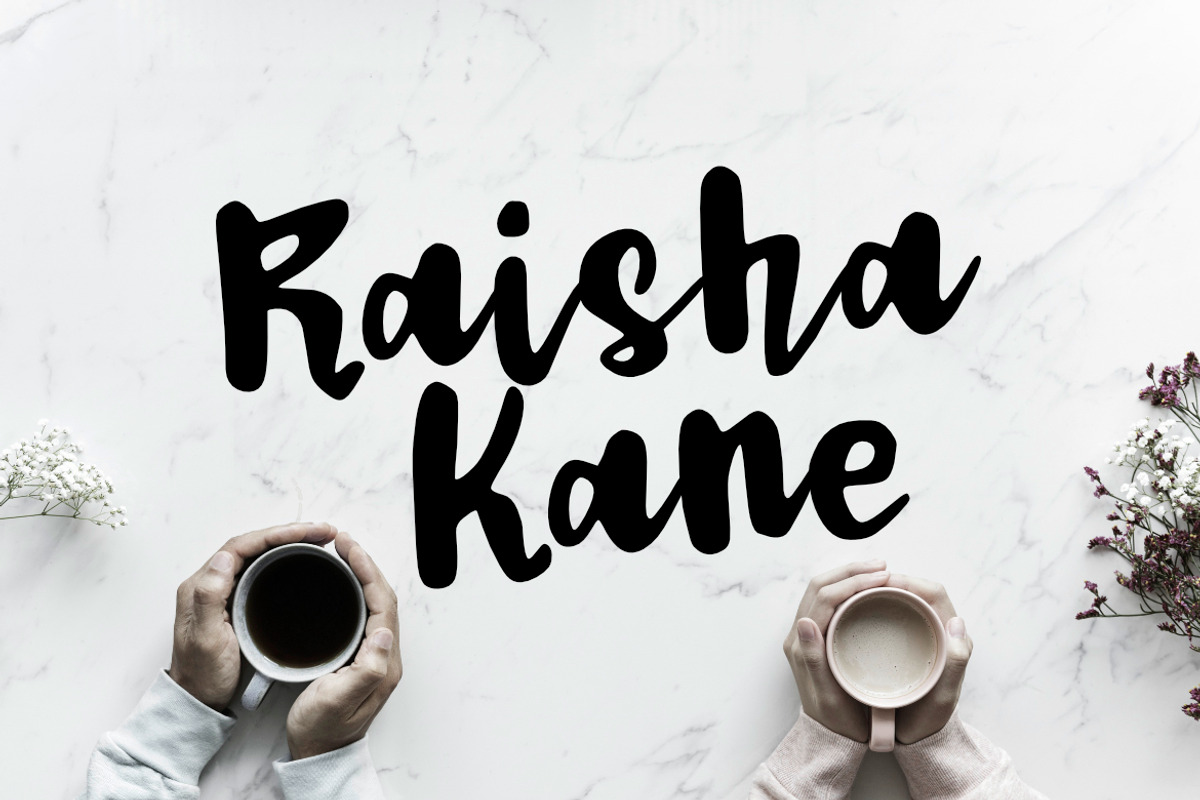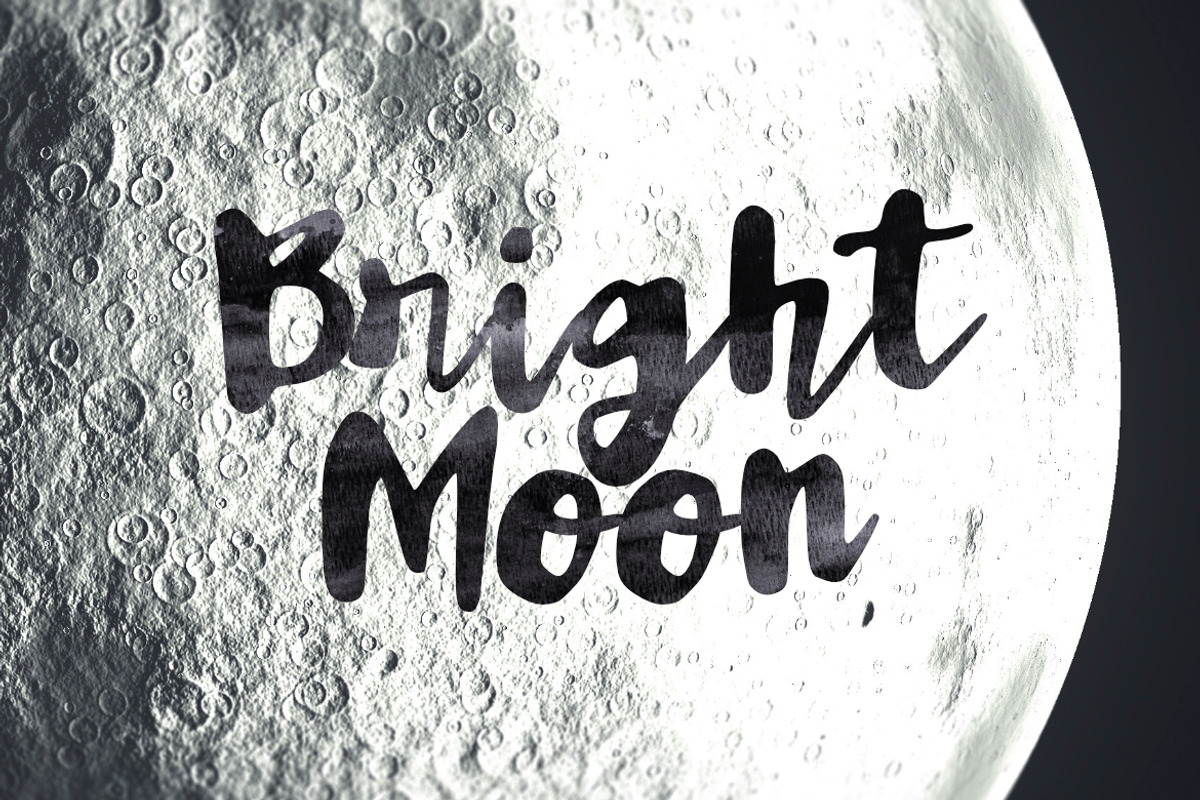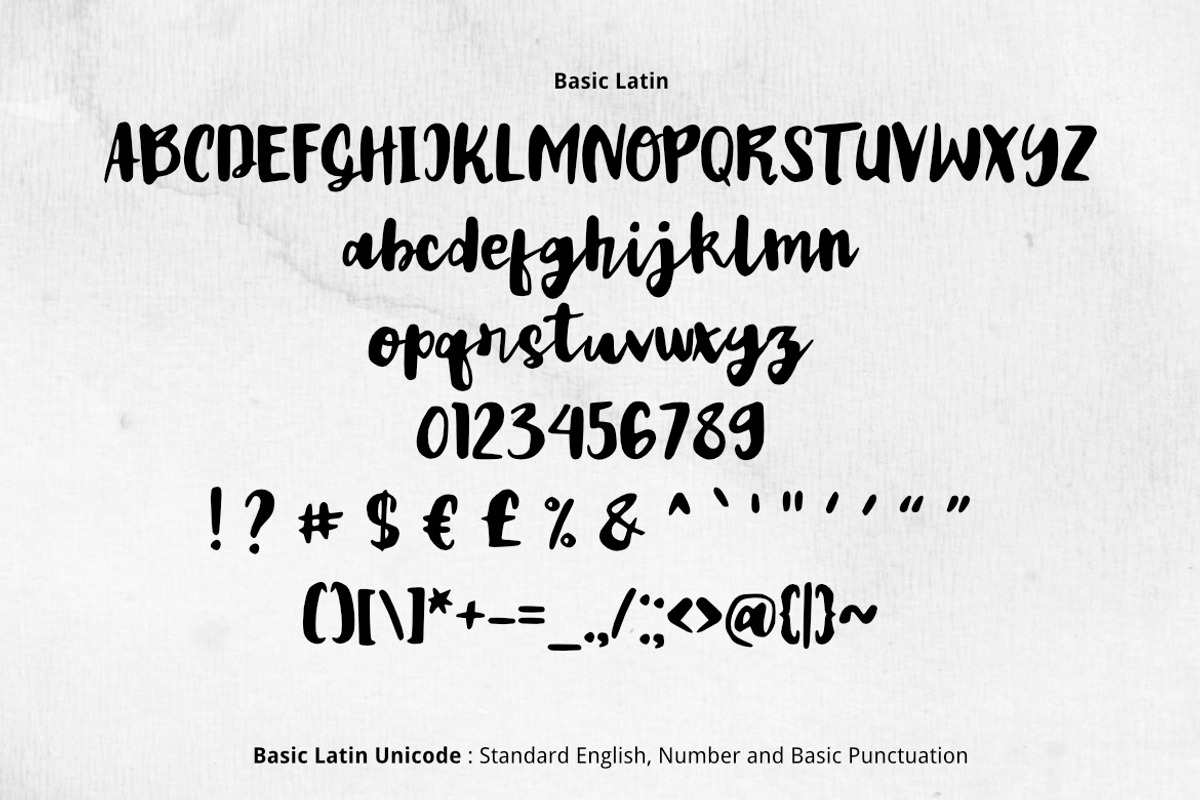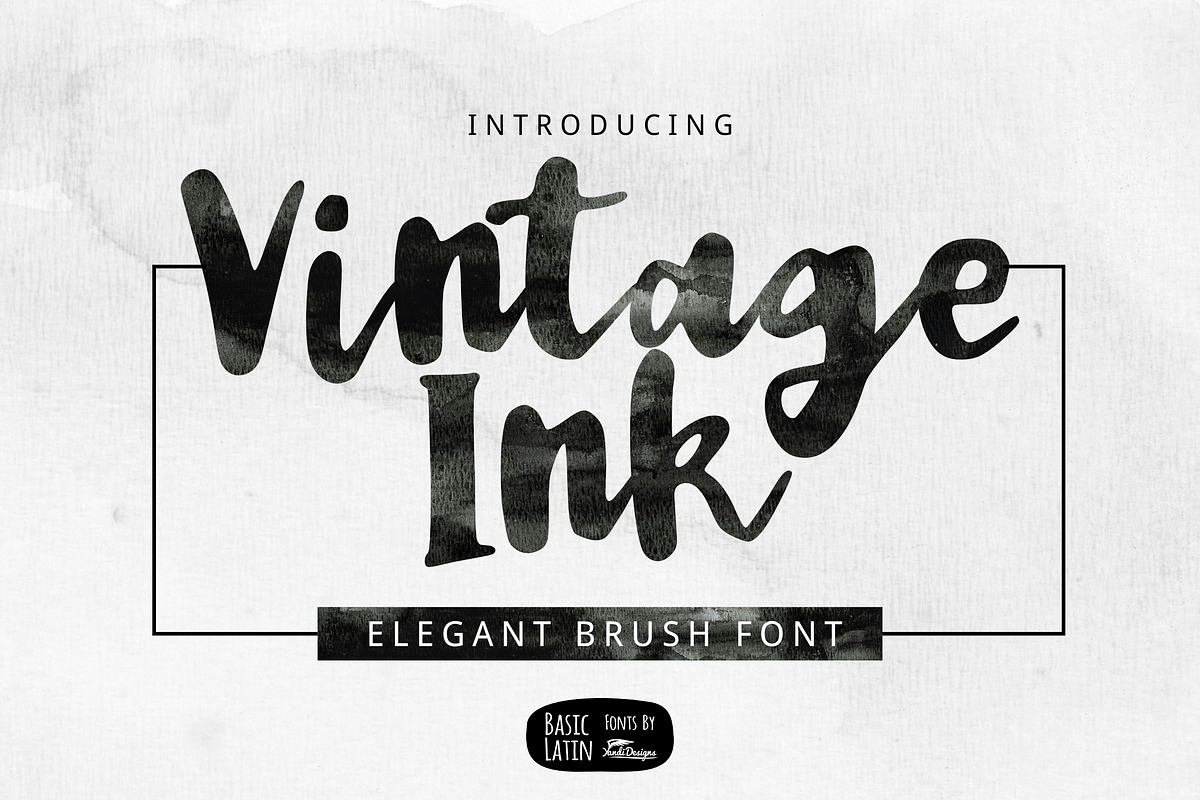
Vintage Ink Brush Font
Simple elegant multipurpose brush font , suitable for many project children book, quotes, logo , heading , title etc.
Why Vintage Ink Brush Font is worth a look
Vintage Ink Brush Font by YandiDesigns fits naturally into Branding, posters, packaging, typography.